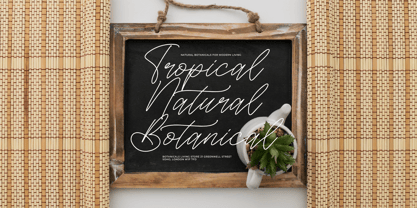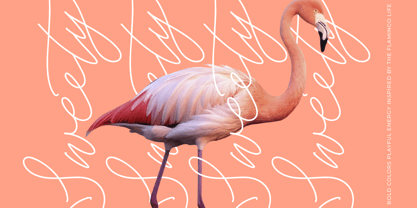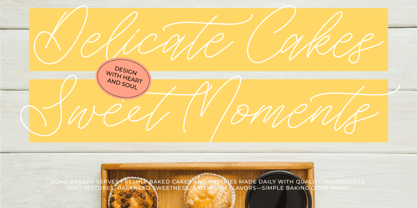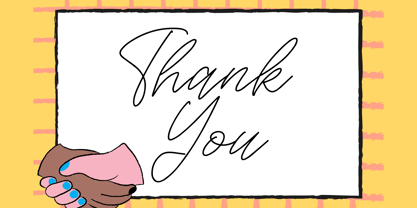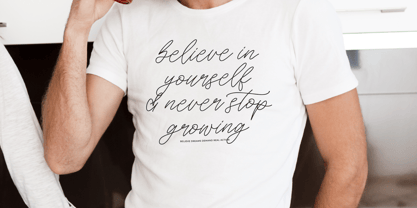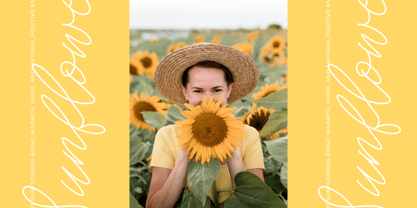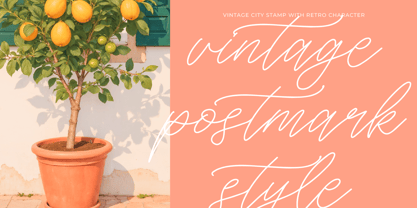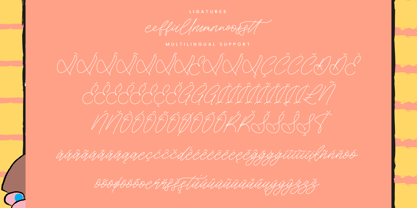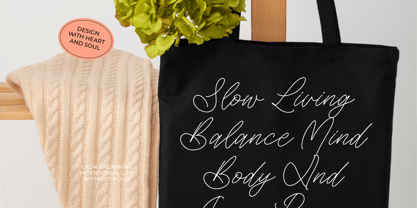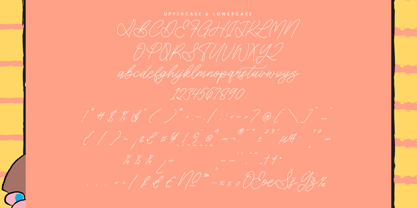
Soft Petals
Soft Petals is a beauty monoline handwritten font that exudes softness, elegance, and a naturally feminine touch. Inspired by the gentle flow of flower petals, this font showcases clean monoline strokes paired with graceful handwritten characters, resulting in a modern yet warm visual style. Designed for versatility and sophistication, Soft Petals is ideal for beauty branding, cosmetic logos, wedding invitations, feminine packaging, social media quotes, fashion editorials, and lifestyle designs. Each letter is meticulously crafted to ensure clarity and consistency, making the font easy to read in both small and large sizes. With its smooth rhythm and balanced curves, Soft Petals pairs beautifully with serif or sans-serif fonts, enabling designers to create professional, elegant, and timeless compositions. Perfect for beauty and cosmetic branding, feminine logos, wedding designs, packaging, boutique branding, social media content, fashion projects, quotes, and modern handwritten designs.